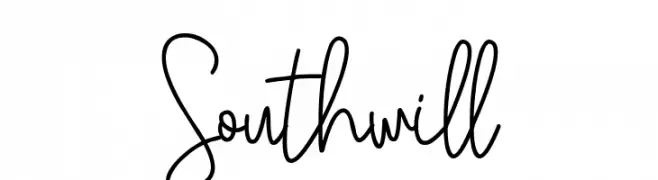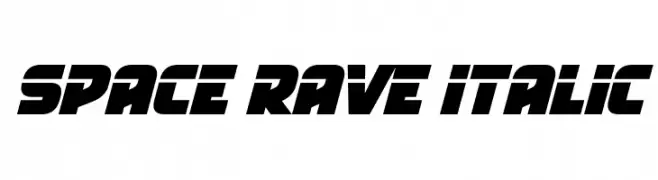
A playful, handwritten font with a whimsical and casual style.
A bold, geometric typeface with a futuristic and angular design.
A bold, futuristic italic font with angular shapes and sharp edges.
A cursive, handwritten font with elegant curves and artistic flair.
A spooky, dripping font ideal for Halloween themes.
A fiery, flame-embellished font perfect for spooky, dramatic designs.
A spooky, Halloween-themed decorative font with playful, eerie elements.
A bold, jagged font with a spooky, monster-like appearance.
A bold, jagged font with a spooky, monstrous aesthetic.
A whimsical font with letters held by cartoon mummies, perfect for spooky themes.